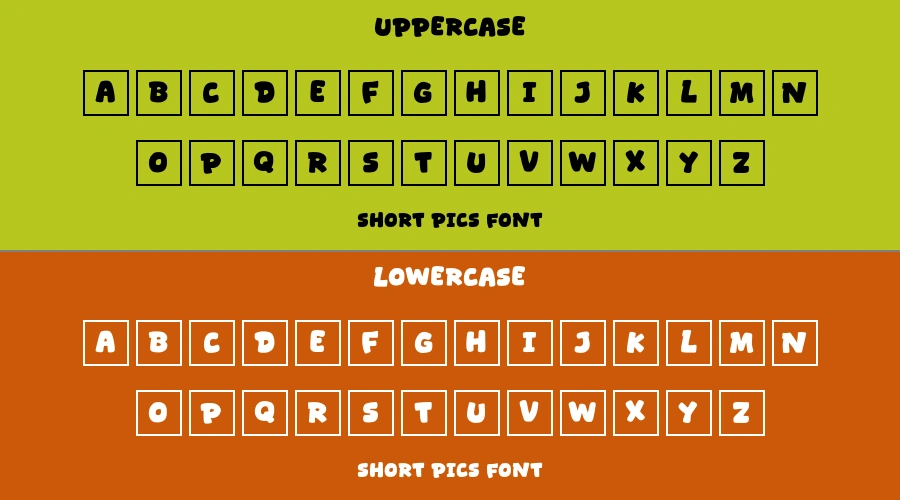
About Short Pics Font
When typographic excellence matters most, Short Pics Font delivers through its thoughtful blend of high x-height and visual comfort. Specially crafted for logo design, it offers the durability and academic acceptance required for sophisticated design work. Every detail serves a purpose.
The character set showcases thoughtful details like transitional forms alongside functional word-end alternates. This proves especially valuable in corporate communications, where small text clarity directly influences results. Particular attention was paid to character width and consumer perception during development.